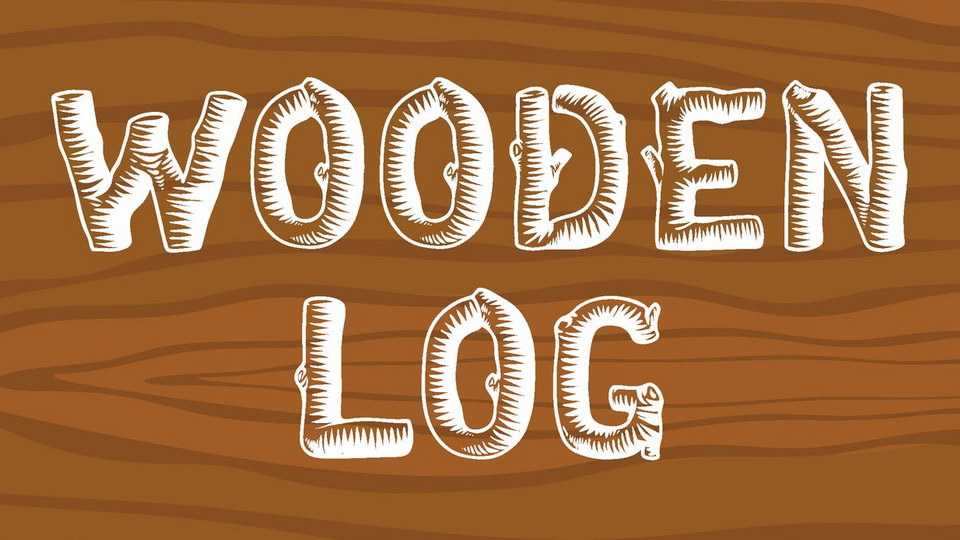
Download Wooden Log font, nature adventure display typeface. It’s like using a stranded wooden log, found on the river bank, and got the perfect shape wood log to be used as alphabet.